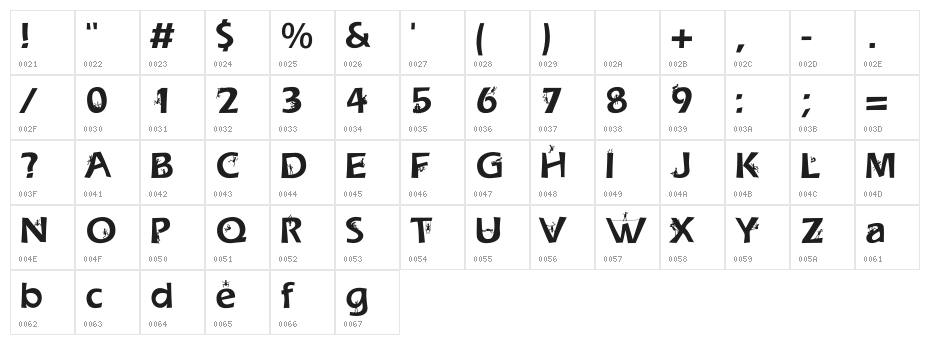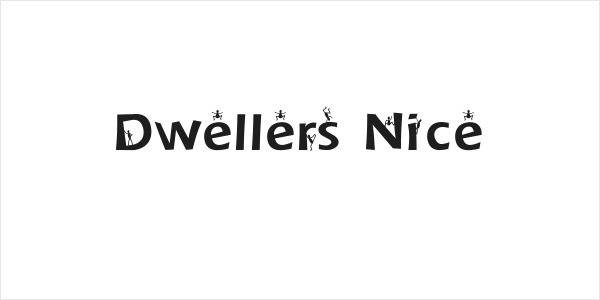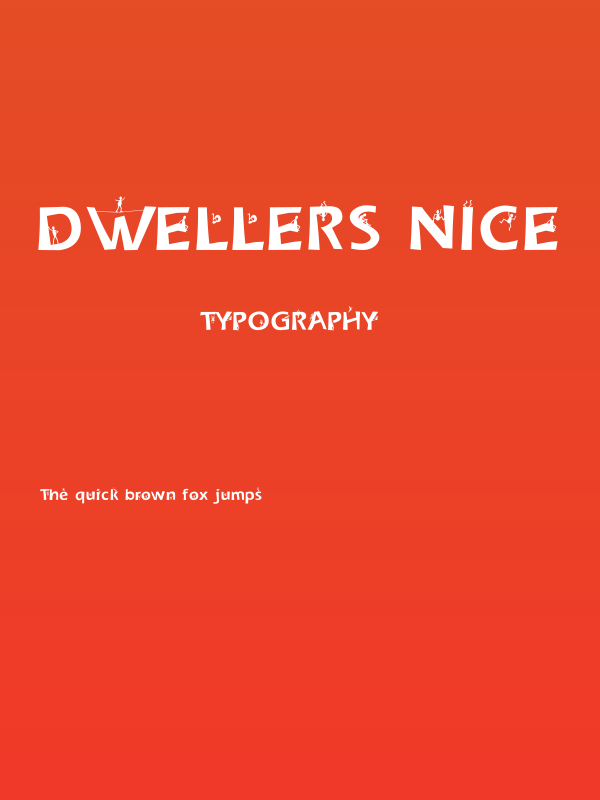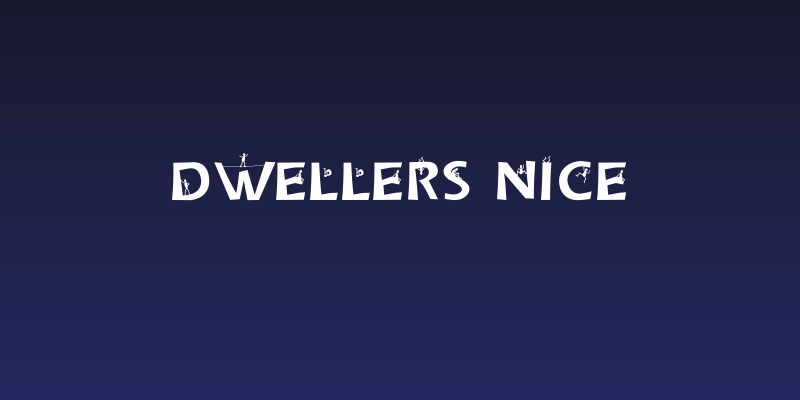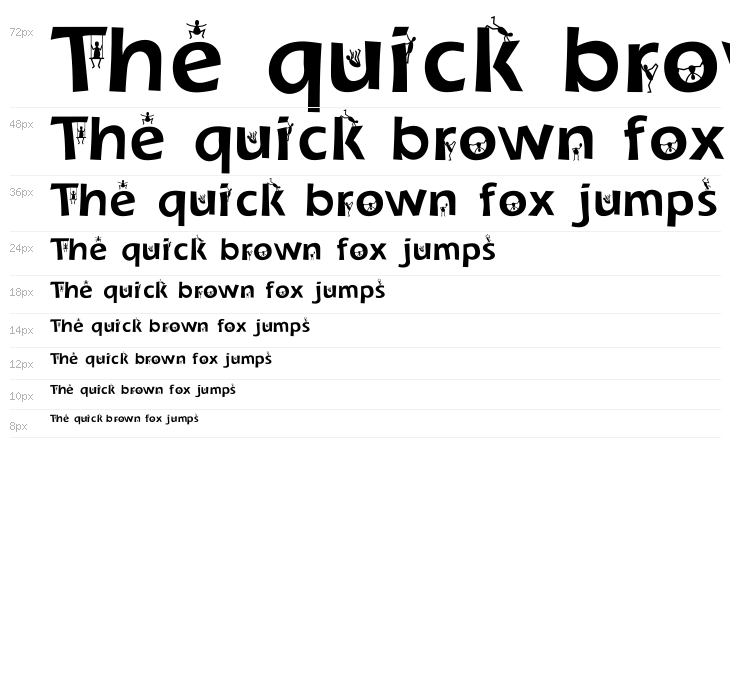
Dwellers Nice Font
Dwellers Nice Description
This playful and whimsical font features silhouettes of tiny figures interacting with each letter and number, creating a dynamic and engaging visual experience. The characters are bold and slightly condensed, with a modern and decorative style that adds a sense of fun and creativity. The figures are cleverly integrated into the design, climbing, hanging, and interacting with the strokes, which adds a unique and lively touch. The font maintains readability while offering a distinctive artistic flair, making it suitable for projects that aim to capture attention and convey a sense of playfulness.
| Proposed Projects | Ideal for children's books, playful branding, creative posters, and event invitations. |